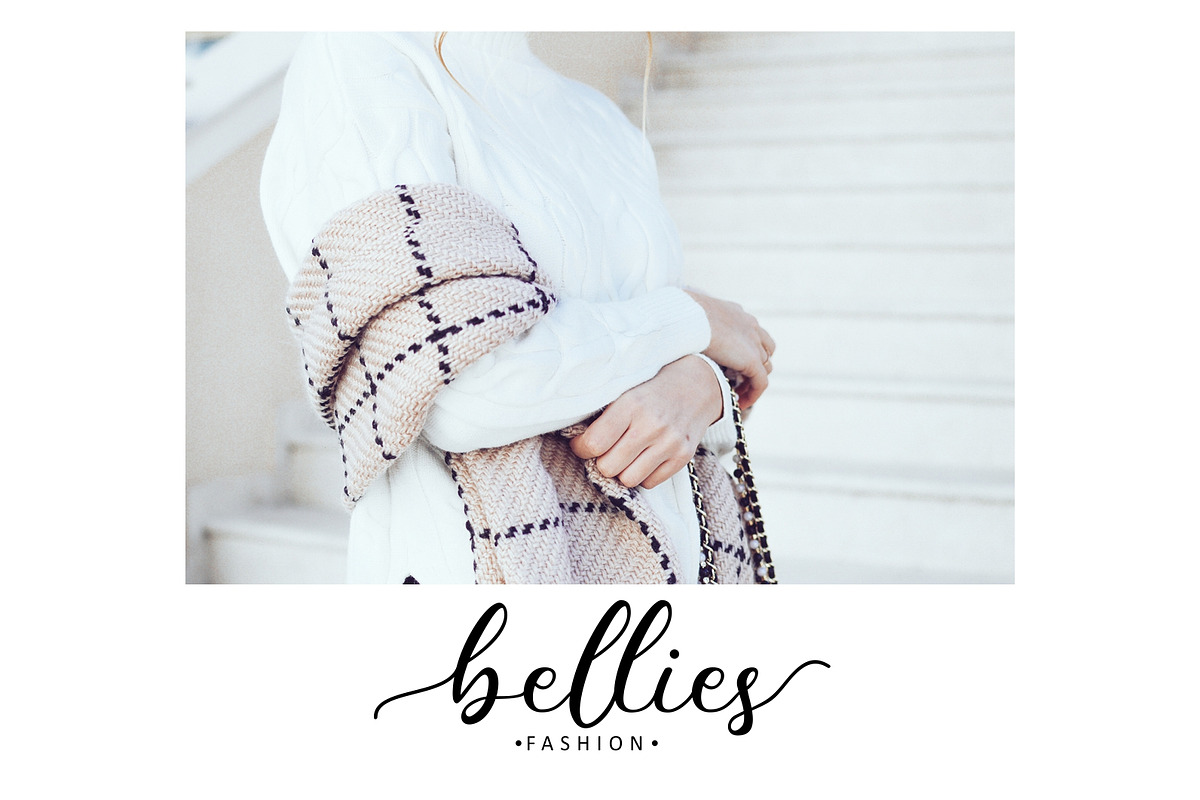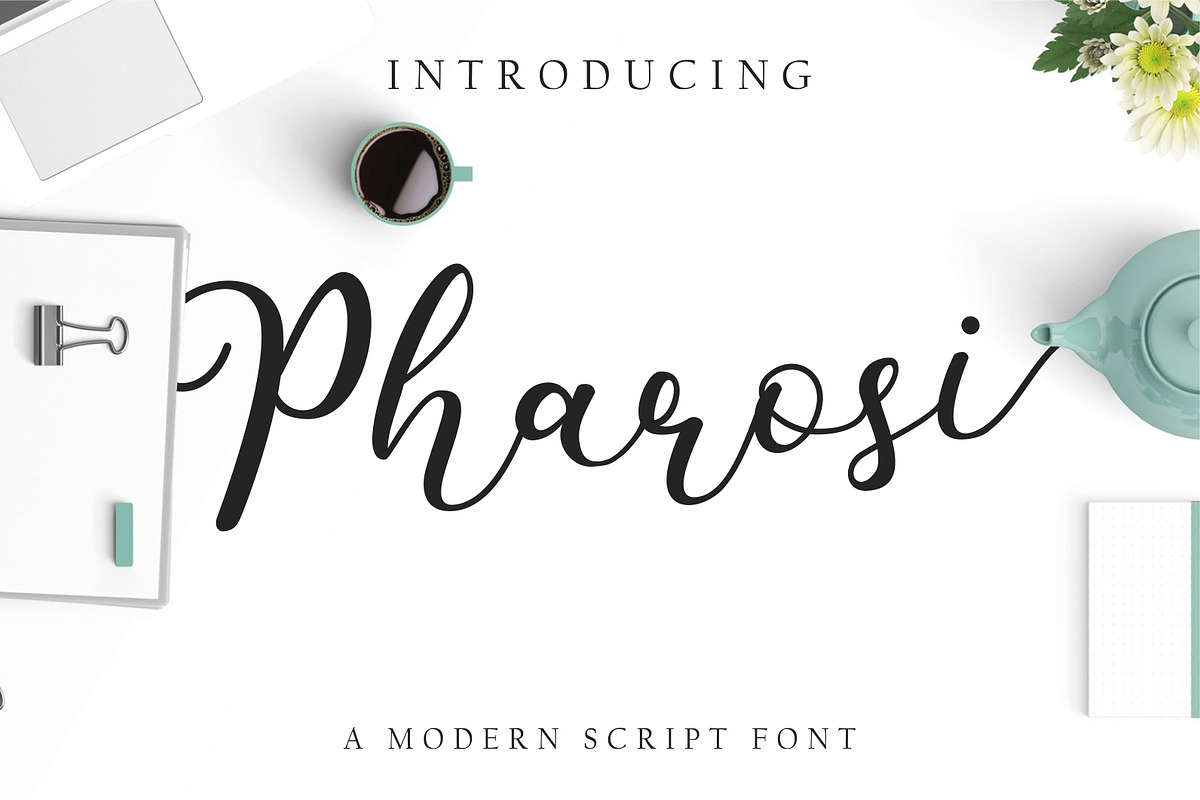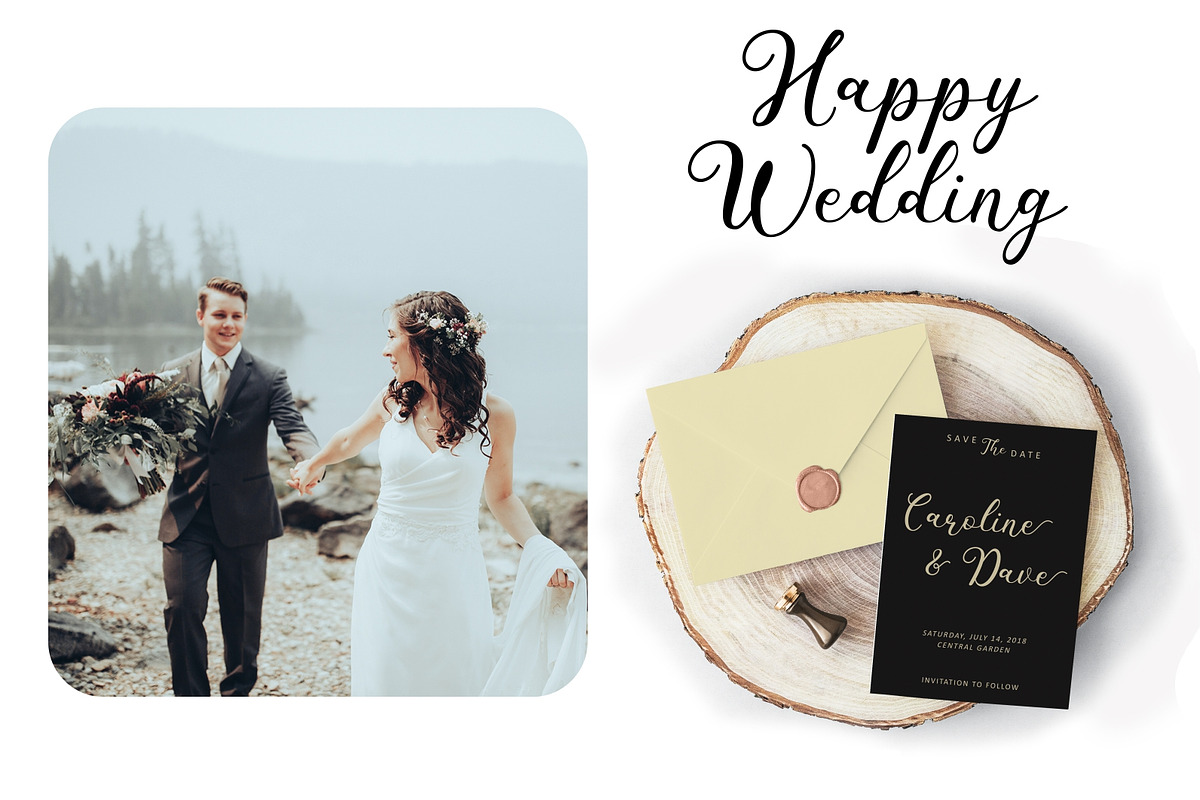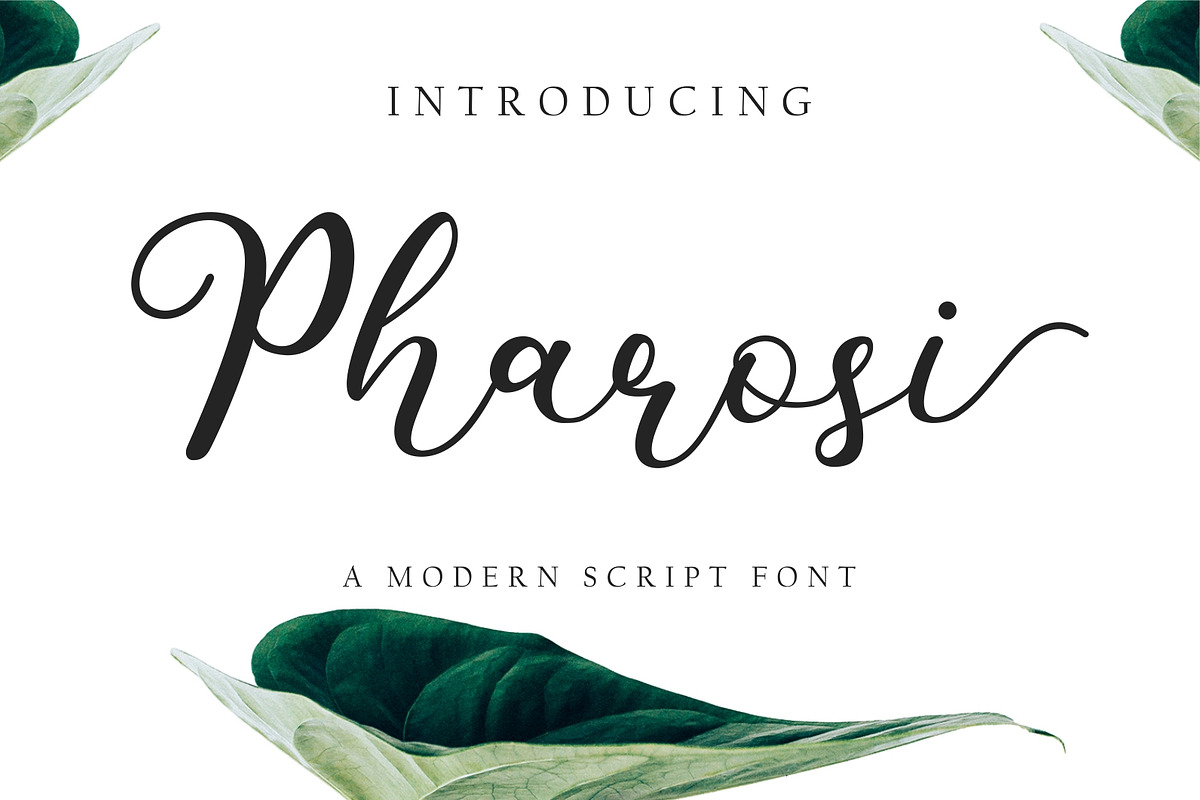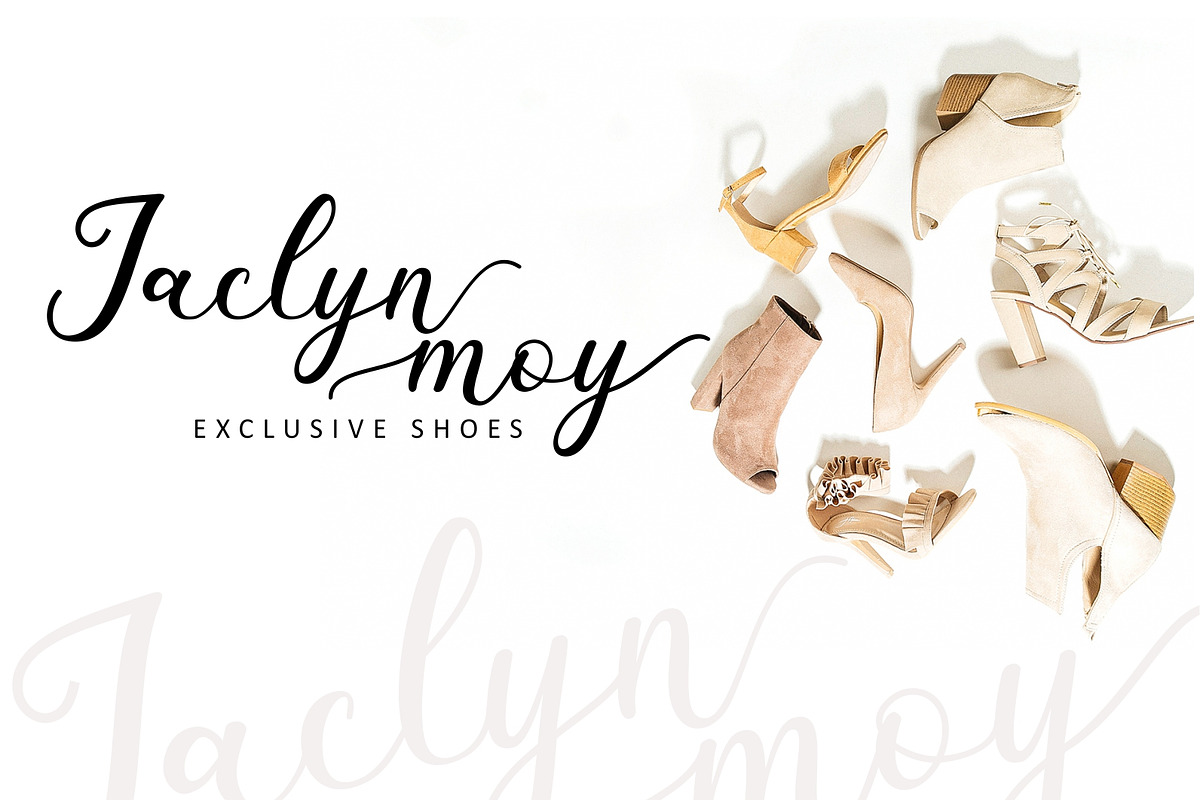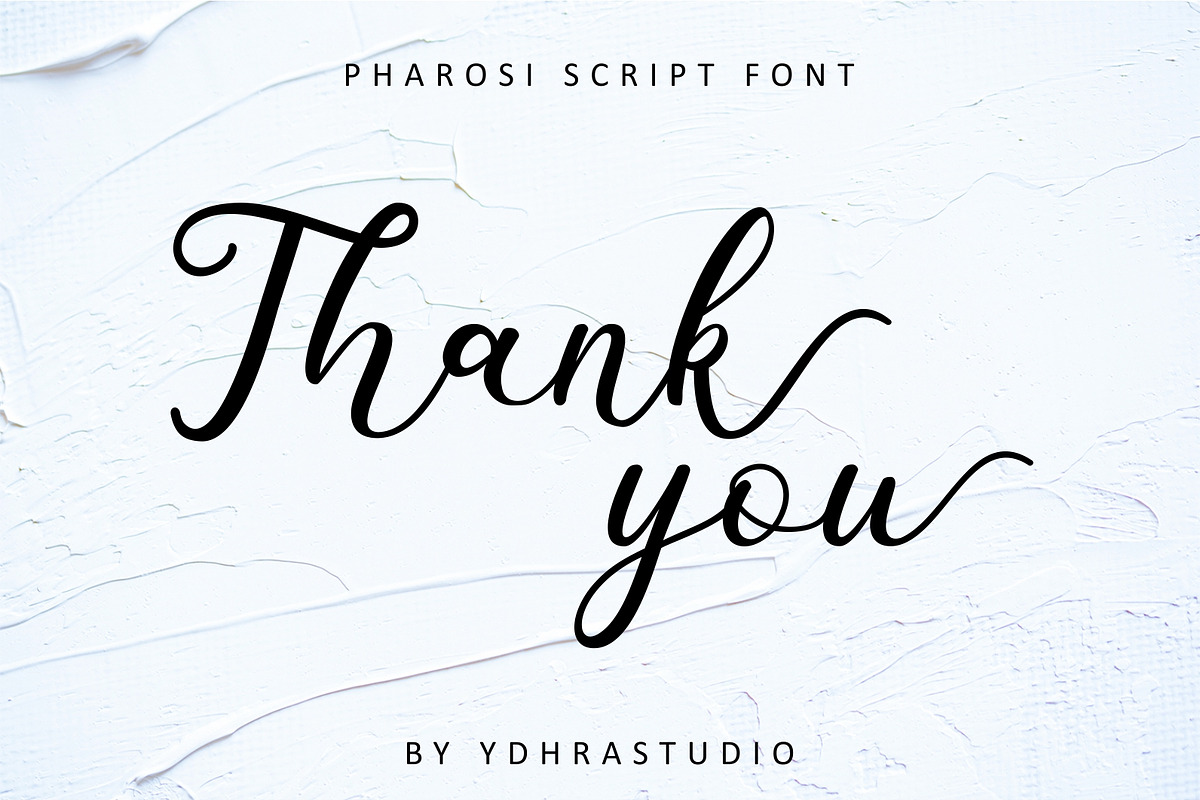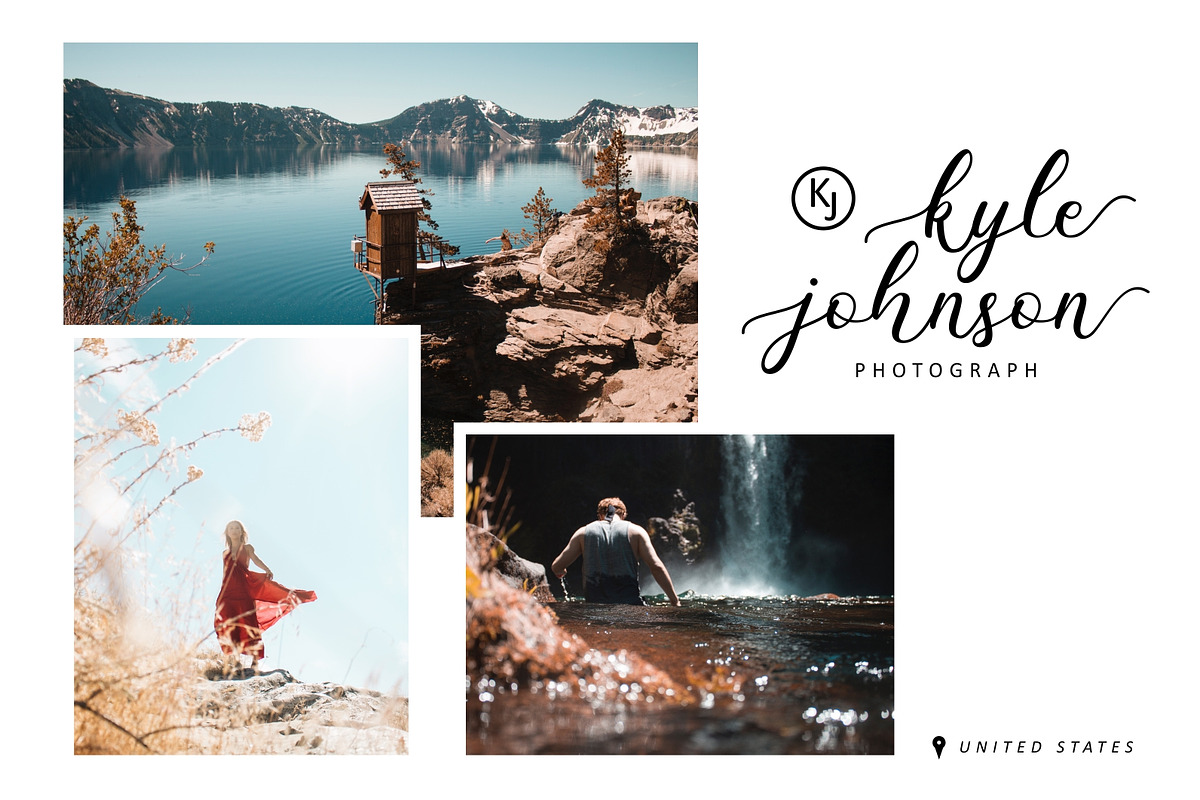
Pharosi Modern Script Font
We introduce our new product called Pharosi Font.The Pharosi Font is a modern calligraphy font. Pharosi font was built with OpenType features and includes beginning and ending swashes, numbers, punctuation, alternates, and ligatures.
Pharosi Font is great for design projects, including logos & branding, wedding designs, social media posts, advertisements & product designs. Mix and match the alternate characters to add an attractive message to your design.
- Pharosi font was built with OpenType features and includes beginning and ending swashes, numbers, punctuation, alternates, and ligatures.
Pharosi Modern Script Font by YdhraStudio fits naturally into Branding, posters, packaging, typography.